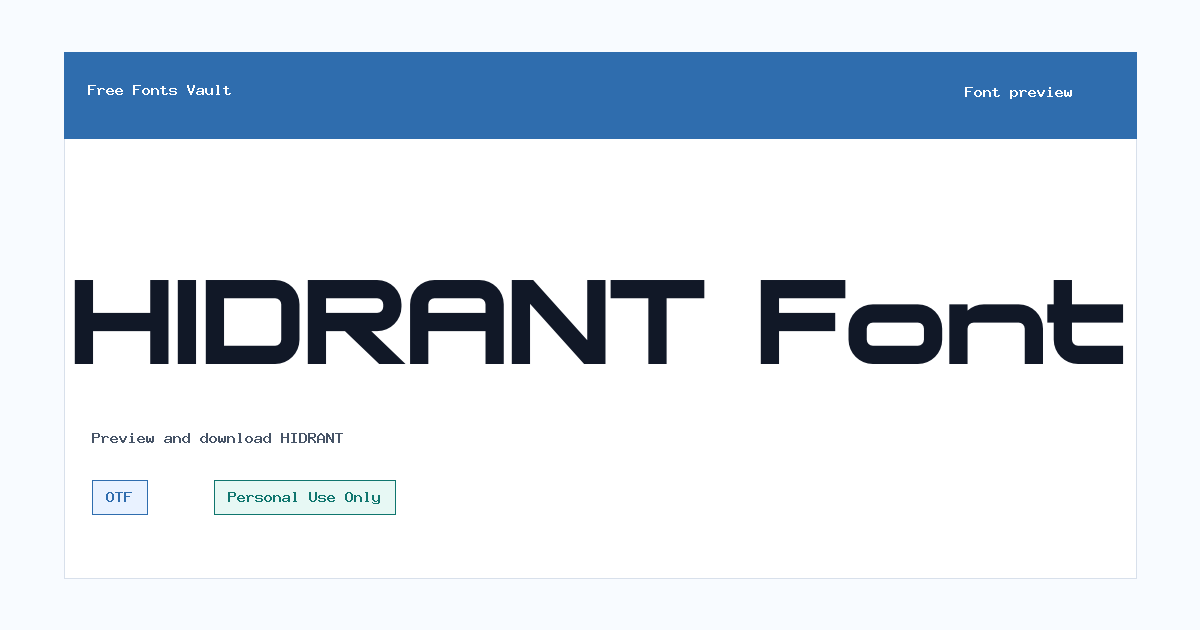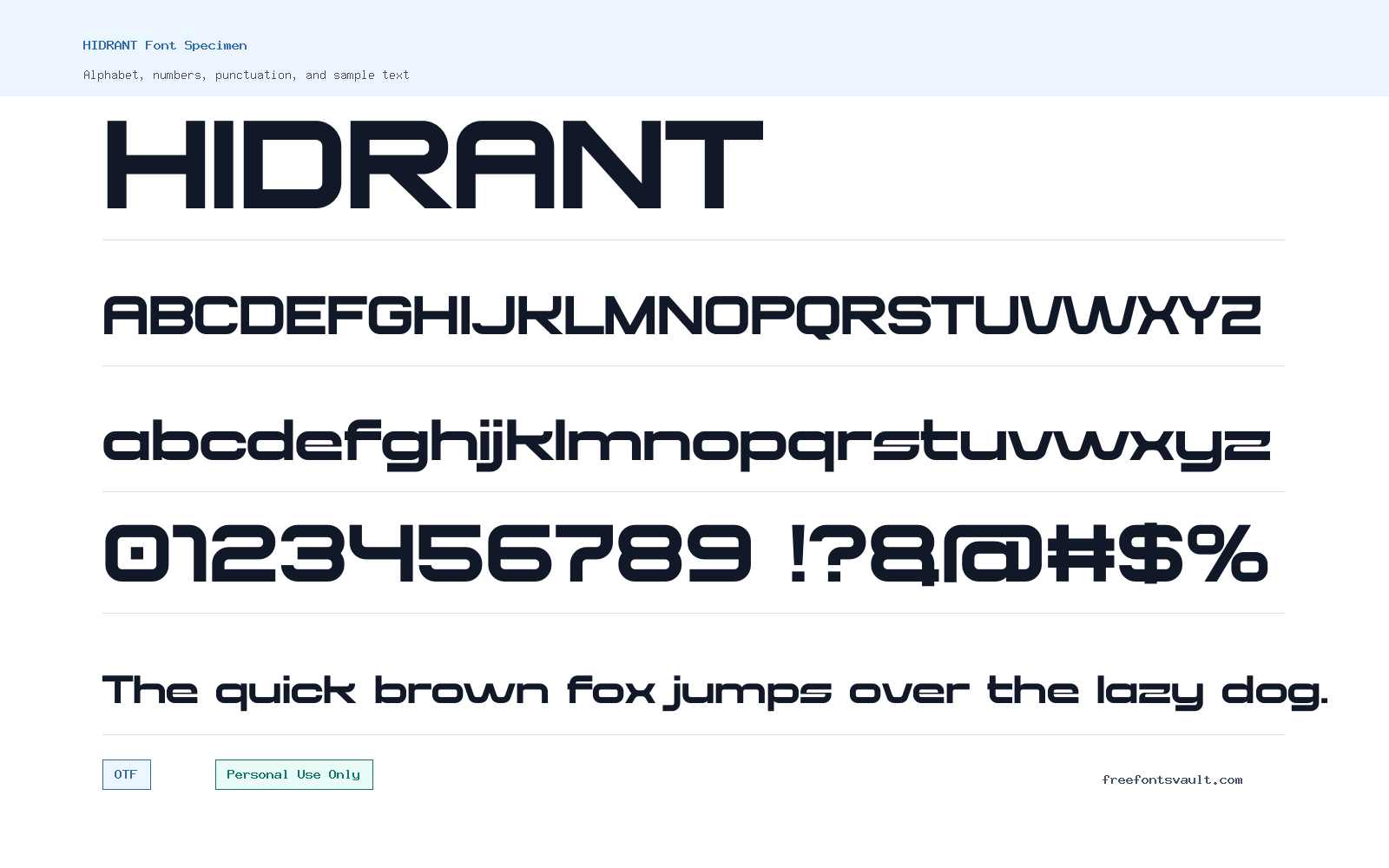
HIDRANT
- Designer Idebareng Team
- Foundry Idebareng
HIDRANT is a sans serif display font offered as an OTF file for personal-use projects. It is a good option to test when you need bold, clean lettering for short pieces of text rather than long reading paragraphs.
HIDRANT works best as a headline or display face where the font can be shown at a larger size. Since the available file is a regular-weight OTF, it is simple to install and test in most design apps. Use the preview tool to check its spacing, uppercase and lowercase shapes, punctuation, and how it handles the exact words you plan to use. That is especially useful for display fonts, where a name, title, or poster line can look very different from a full alphabet sample.
For practical use, try HIDRANT in logos for personal concepts, social graphics, poster titles, YouTube thumbnails, label mockups, and short branding drafts. Keep the text short and give the letters enough room to breathe. If you are building a full layout, pair it with a calmer body font so HIDRANT can do the attention-grabbing work without making the page feel crowded. Always test readability at the final size, especially on mobile screens or small printed items.
- Sans serif display style suited to larger text settings, titles, and short graphic phrases.
- Personal poster designs, social media graphics, thumbnails, and title treatments.
- Branding concepts, logo drafts, packaging mockups, and other short-text experiments.
The designer is listed as Idebareng Team, with Idebareng named as the foundry.
Who designed HIDRANT?
HIDRANT is credited to Idebareng Team, and the foundry is listed as Idebareng.
What kind of projects is HIDRANT best for?
HIDRANT is most useful for short display text such as posters, social graphics, title cards, mock logos, and personal branding experiments. It is not the best first choice for long paragraphs.